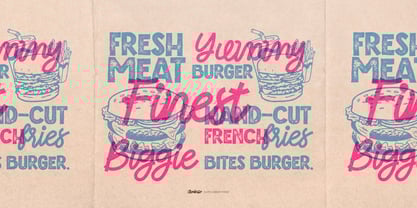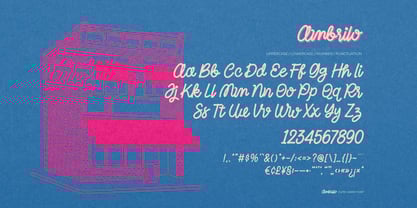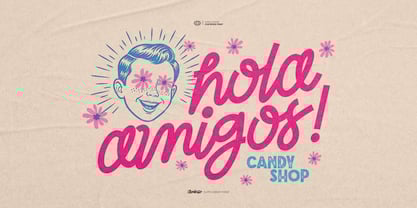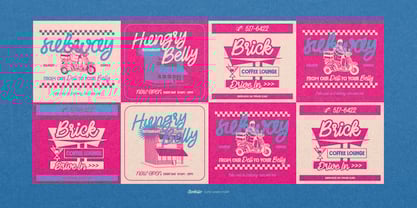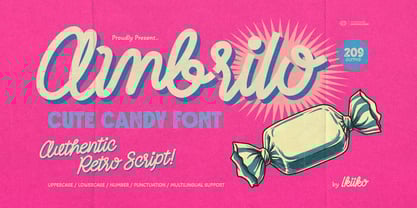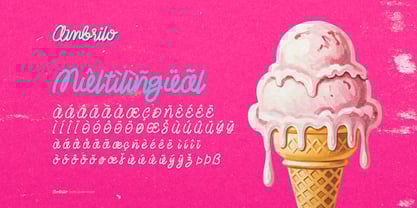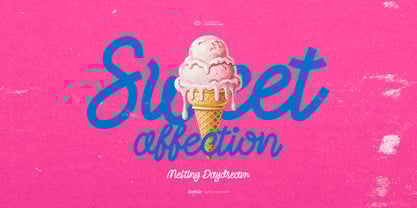
Ambrilo
by IKIIKOWRK
The Ambrilo Font Family was designed by Andhika Pradana and published by IKIIKOWRK. Ambrilo contains 1 styles.
Proudly Present Ambrilo - Cute Candy Font, created by ikiiko Ambrilo is a cute candy font crafted for designers who love playful charm with a retro look and modern script elegance. Inspired by bubblegum shops, vintage sweet ads, and handwritten love notes, this font blends fancy monoline style with a smooth, sugary flow. Every curve feels hand-drawn, making it perfect for projects that need a touch of whimsy, joy, and sweetness. With its candy-like strokes and cute retro script, Ambrilo brings delightful personality to branding, packaging, logos, quotes, Instagram posts, greeting cards, children’s illustrations, and pastel-themed aesthetics. It’s not just a font—it's a mood board of sweetness wrapped in stylish lettering. What's Included? :: Uppercase & Lowercase :: Numbers & Punctuation :: Multilingual Support :: Works on PC & Mac Get also a good offer & FREEBIE at our site Enjoy our font and if you have any questions, you can contact us by email
Designers: Andhika Pradana
Publisher: IKIIKOWRK
Foundry: IKIIKOWRK
Design Owner: IKIIKOWRK